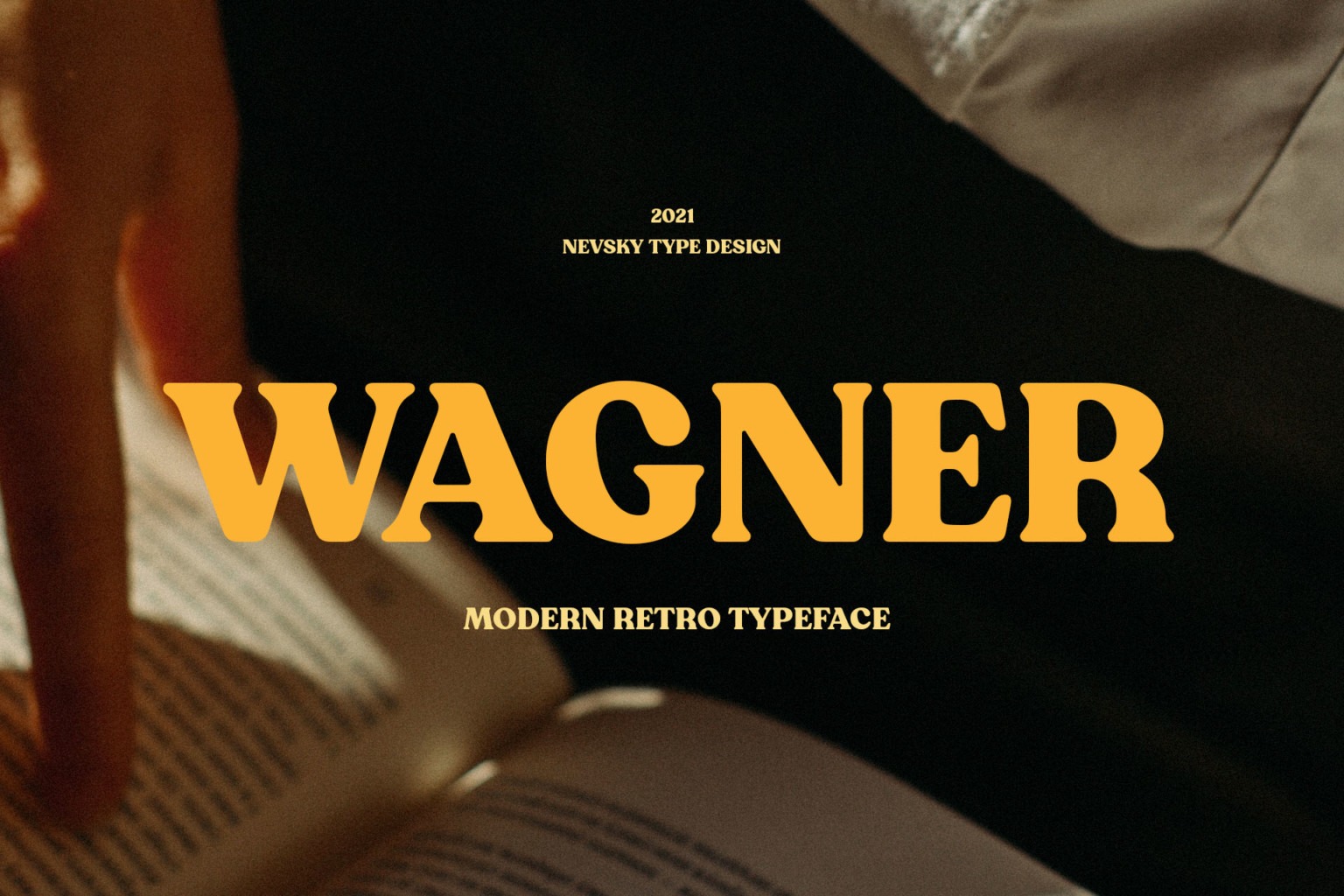
NT Wagner Serif Font
This typeface designed by nevsky type is a well-balanced contemporary serif font will perfect for many project: invitations, postcard, poster, book, advertisements, websites, blog header, logo, branding, magazines, fashion, photography, etc. This font needs to be in your collection and is perfect for your next design project. “NT Wagner” supports over 200 Latin-based languages.